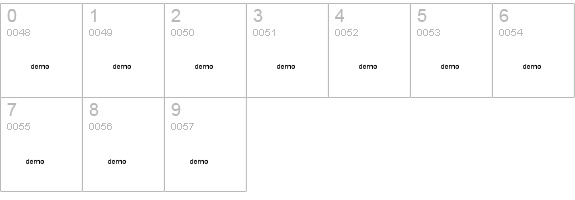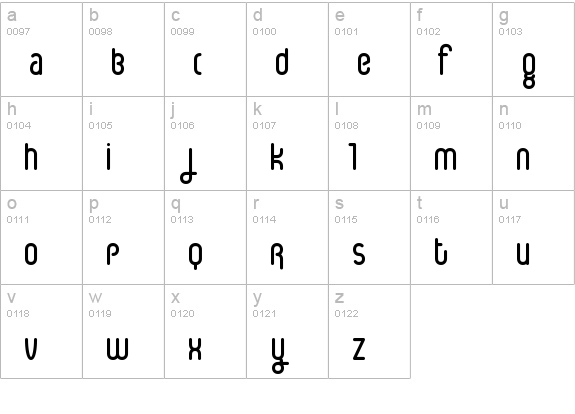
IceCream Soda Font Details
IceCream Soda font is a delightful and playful typeface that will add a touch of sweetness to your designs. With its rounded edges and smooth curves, this font embodies the spirit of a refreshing ice cream soda on a hot summer day. Its bold and vibrant letters will instantly grab attention and make your text stand out. This font is perfect for a variety of projects, from children's books and posters to logos and packaging designs. Its versatility allows it to be used in both digital and print media, making it a valuable addition to any designer's toolkit. But what makes IceCream Soda font even more appealing is the fact that it is free. Yes, you read that right! This amazing font is freely available to download at FontsMarket.com. You don't have to worry about any licensing fees or restrictions. Simply visit FontsMarket.com and start adding a delightful twist to your designs with IceCream Soda font. So why wait? Indulge in the sweetness of IceCream Soda font and give your designs a playful and refreshing vibe. Download it for free at FontsMarket.com and let your creativity flow without any limitations.